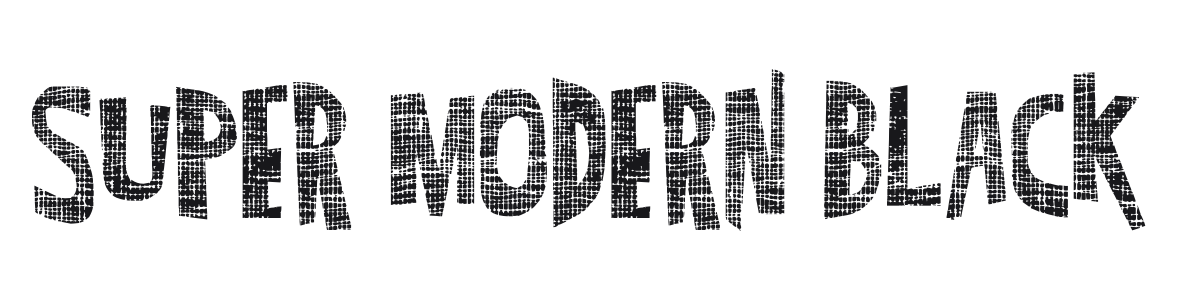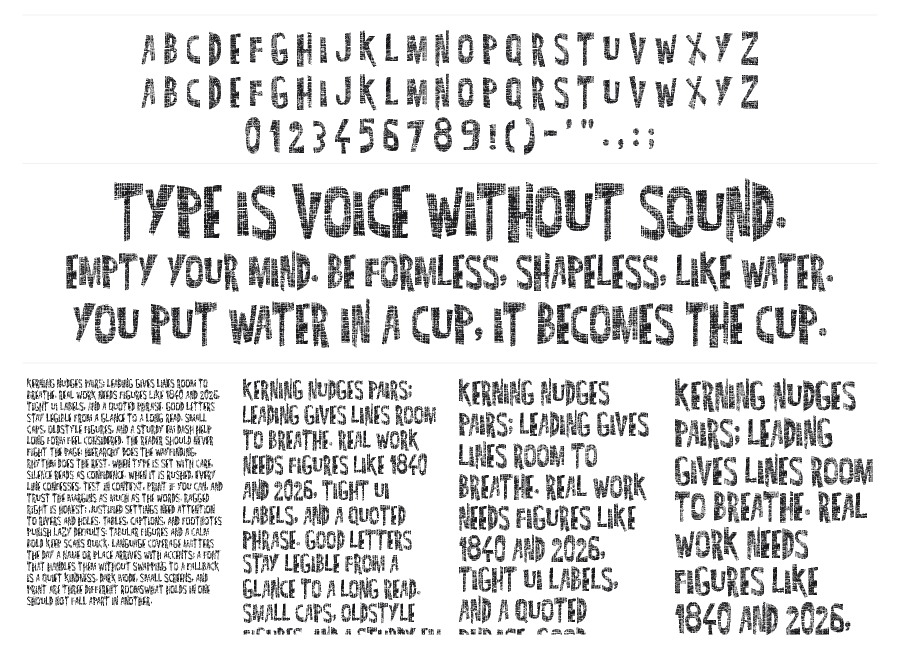
Super Modern black
Super Modern Black is a heavy distressed sans-serif coated in a dense hatched erosion texture that mimics worn screen-printing or rough fabric. Beneath the grit, the underlying forms are broad and confident, which keeps the chaos readable at display sizes. It suits work that needs attitude: gig posters, streetwear graphics, band merch.